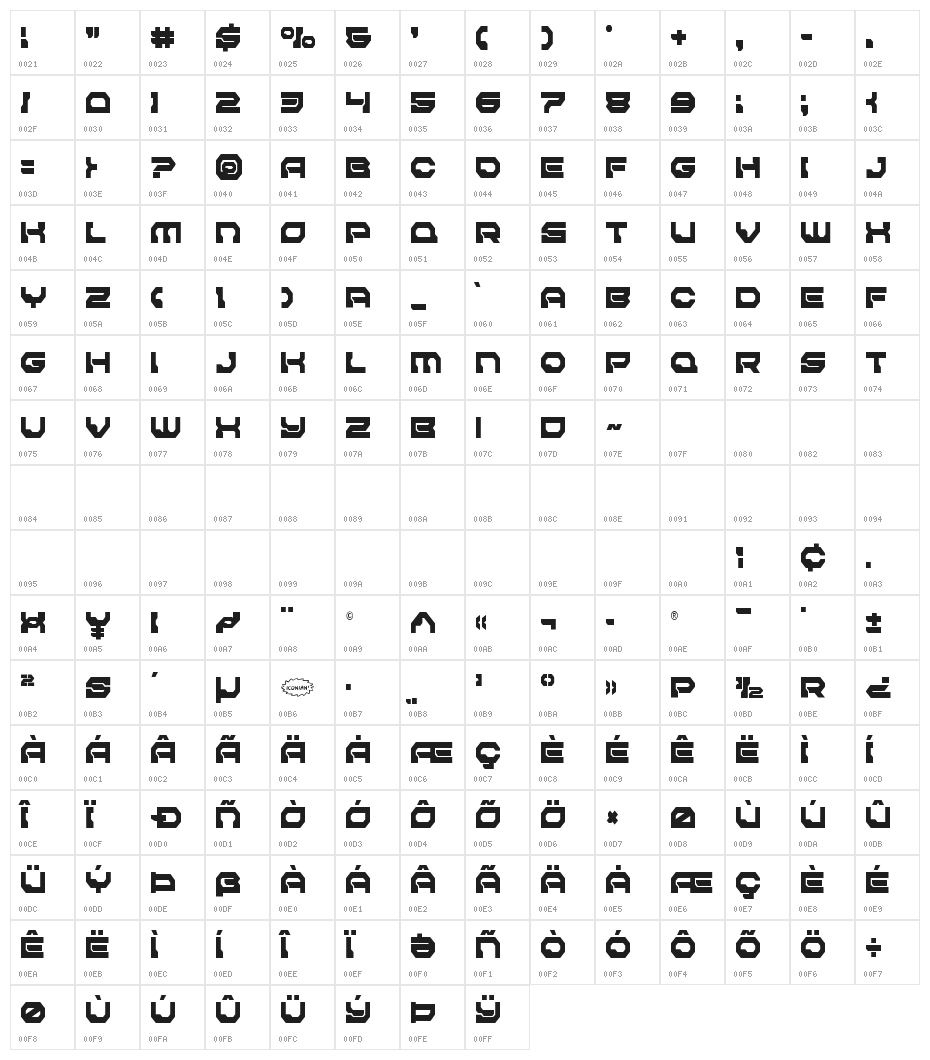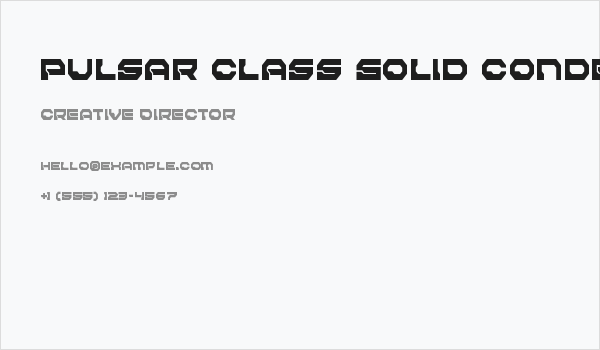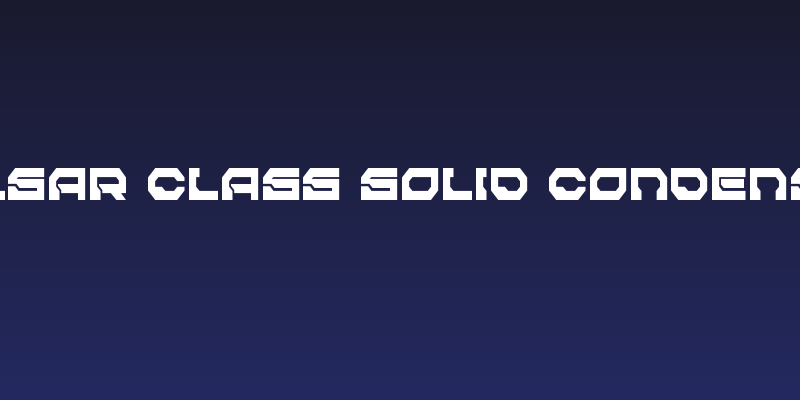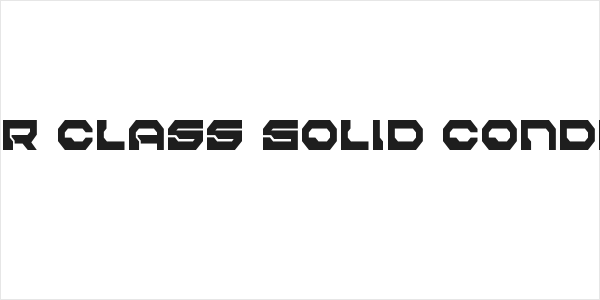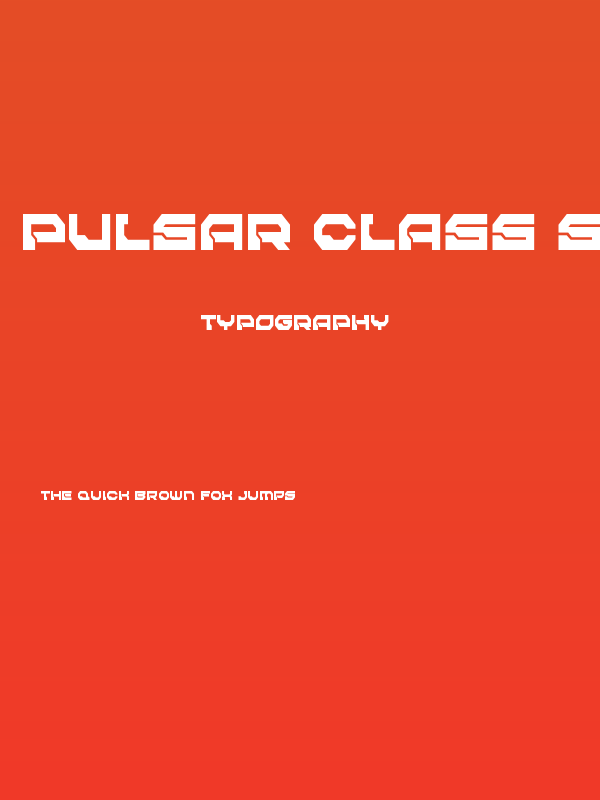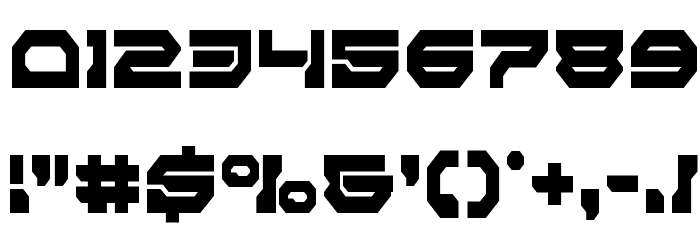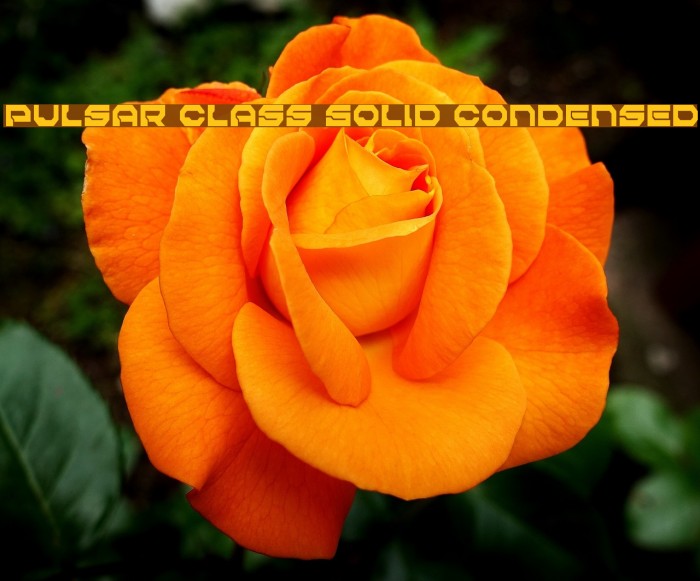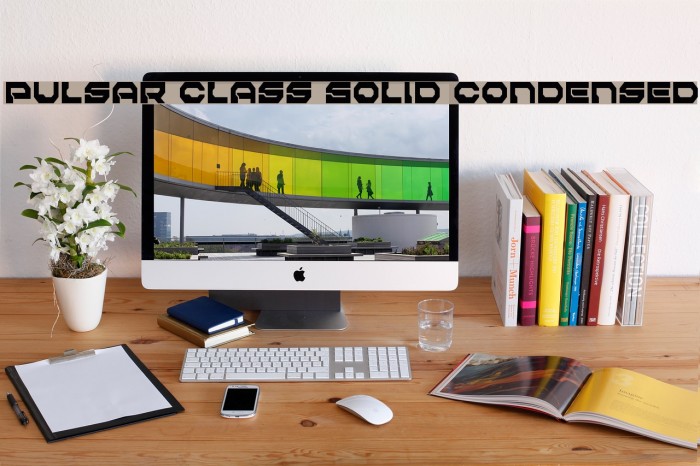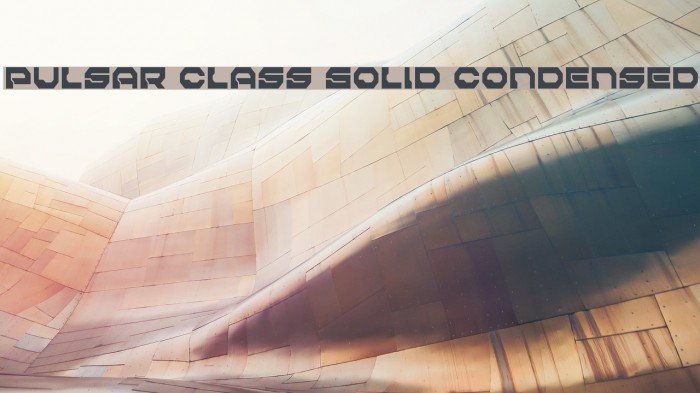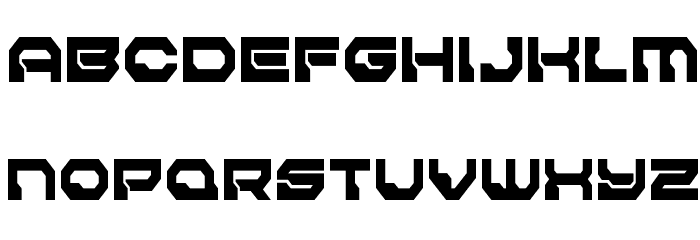
Pulsar Class Solid Condensed Font
Pulsar Class Solid Condensed Description
This font features a bold, geometric design with a futuristic and industrial feel. The characters are constructed with solid, angular shapes, giving them a strong and impactful presence. The condensed width of the letters enhances the compact and efficient look, making it suitable for space-saving applications. The uppercase and lowercase letters maintain a consistent style, with sharp edges and a uniform thickness throughout. The numerals and special characters follow the same design principles, ensuring a cohesive appearance across all elements. The font's unique style makes it ideal for projects that require a modern and edgy aesthetic.
| Proposed Projects | Ideal for sci-fi themed designs, technology branding, video game interfaces, and modern posters. |